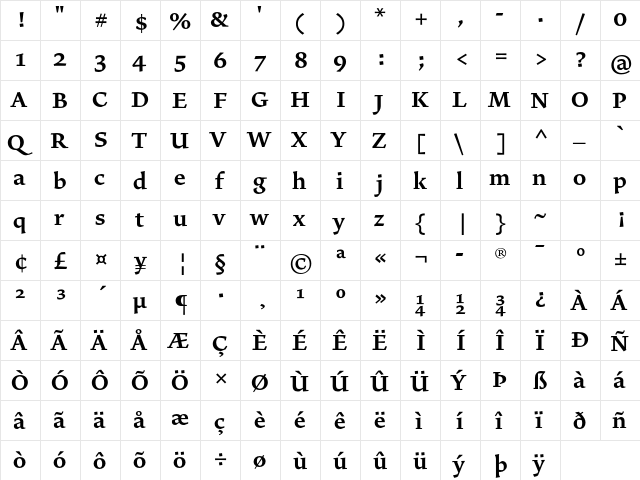
Alisal Std Bold
Design Context for Alisal Std Typeface
Alisal Std offers clean, dependable letterforms without strong stylistic allegiance, making it a practical choice for designers who need flexibility. Its bold stroke weight gives it real presence on the page.